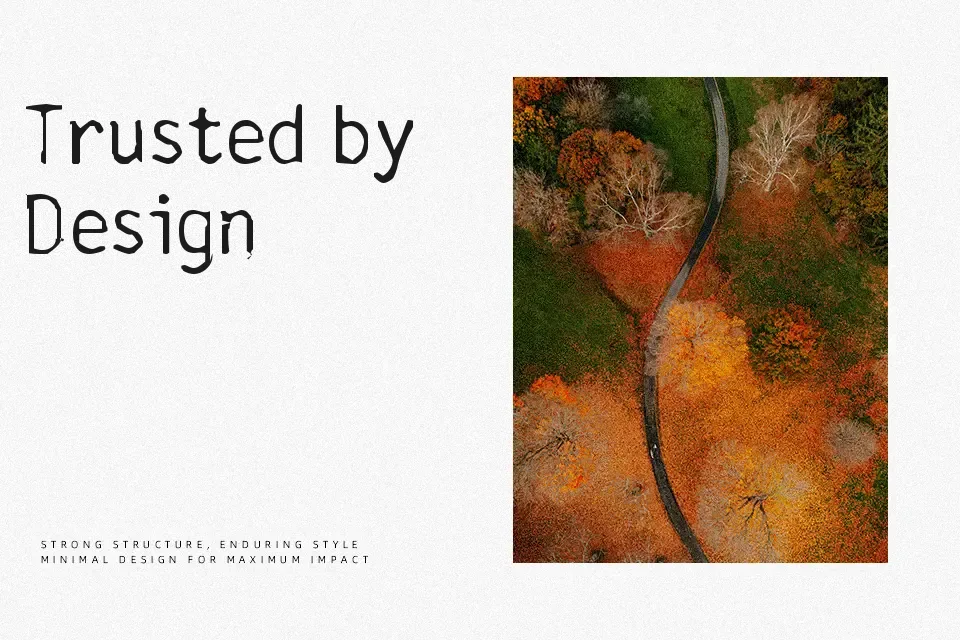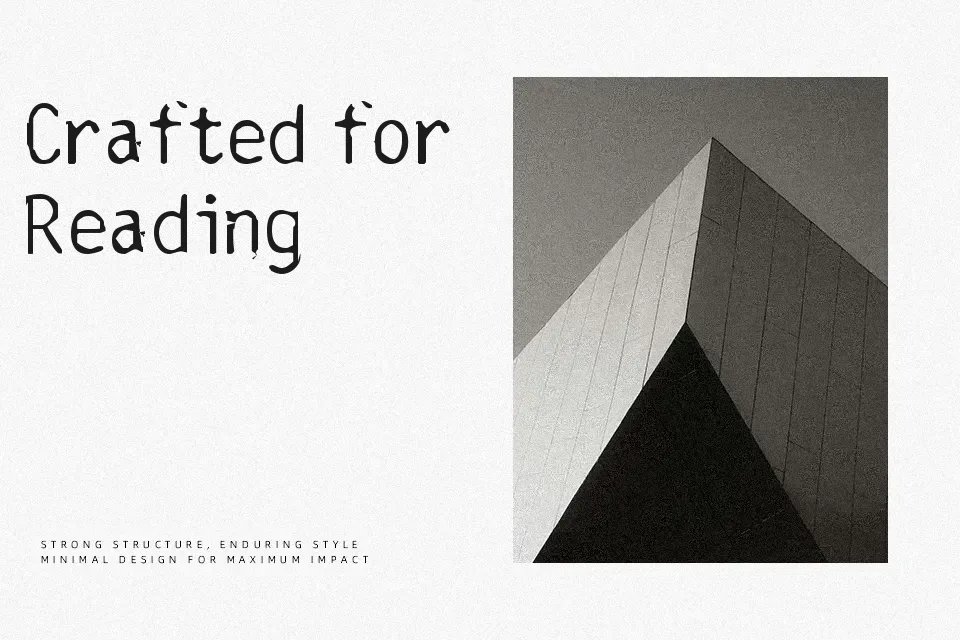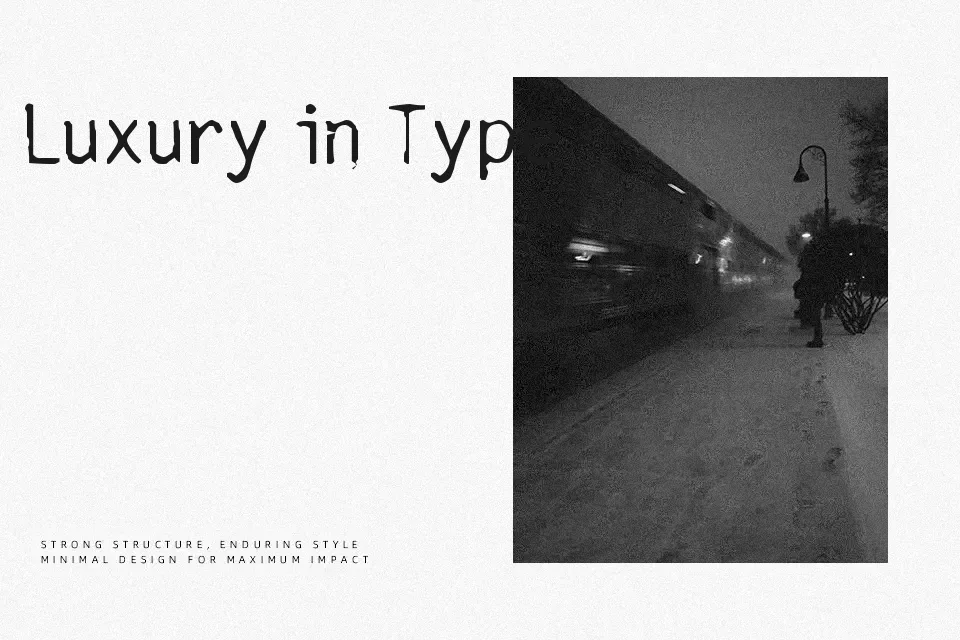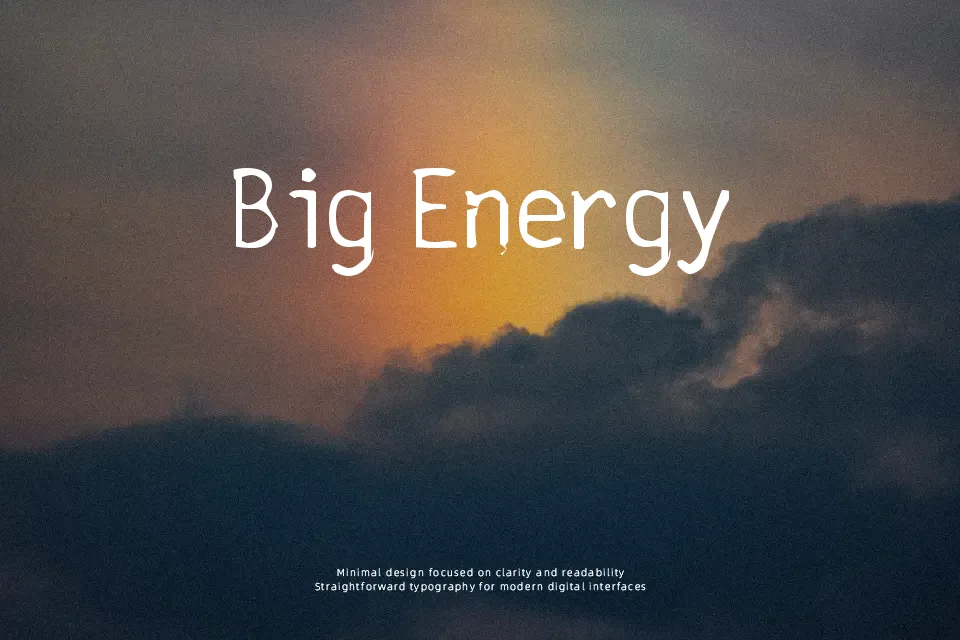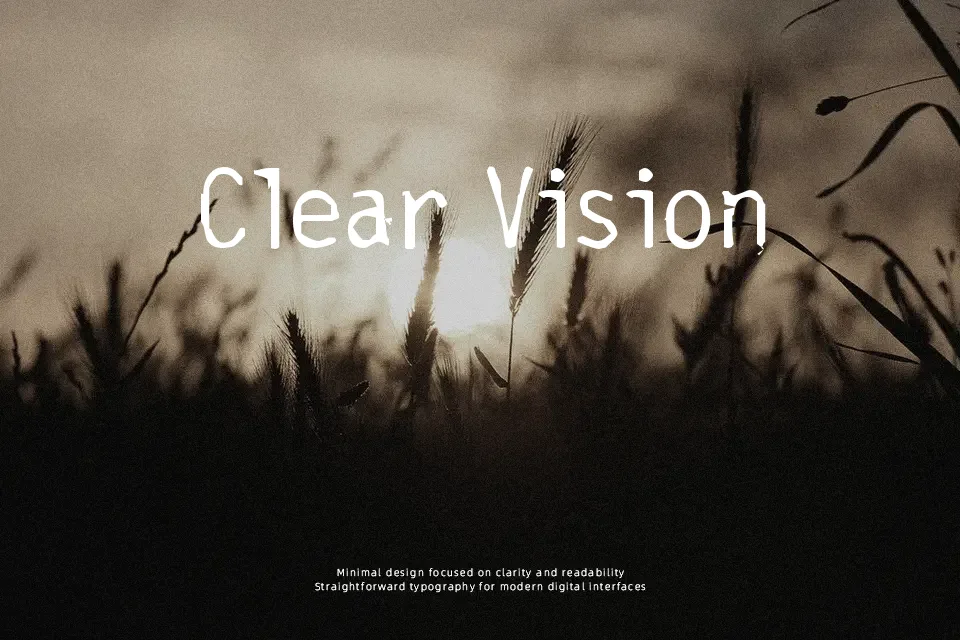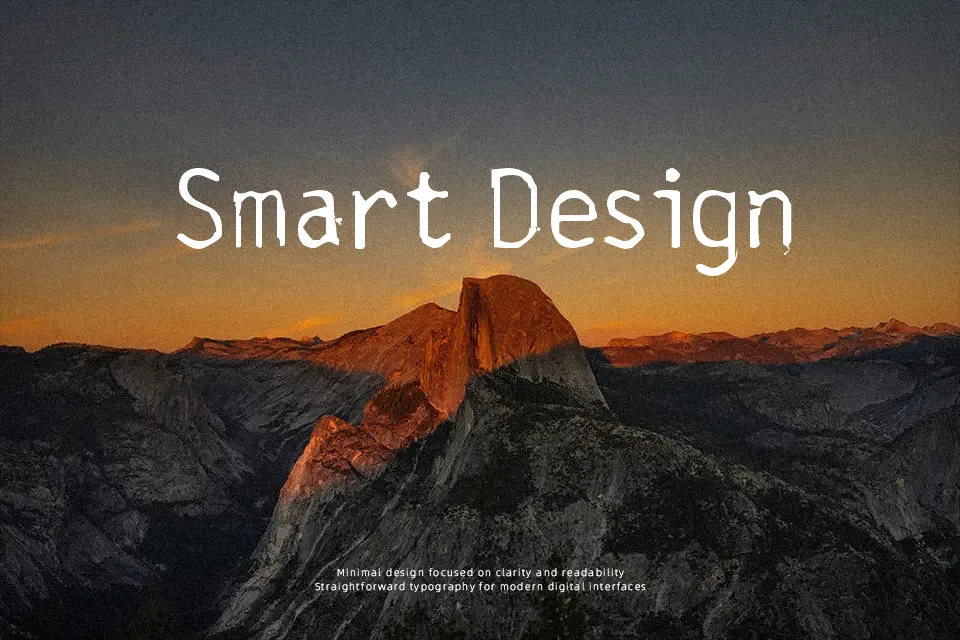
Burned Gothic Font
Designed by Paradox 2005
Burned Gothic is a weathered display font with irregular outlines, chipped terminals, and a rough, charred texture that makes each letter feel slightly unstable on the baseline. Strokes are moderately heavy, counters stay readable, and spacing is tight enough to feel compact without collapsing into noise. Visually it leans decorative and grunge rather than formal, so it works when you need a loud, damaged headline on horror movie artwork, heavy music covers, or Halloween promotion pieces. It struggles in long paragraphs, small captions, or clean corporate layouts, where the texture becomes tiring and unprofessional, so it is better kept for short, high-impact words.
Horror or thriller poster titles
Metal or hardcore album covers
Grunge gaming logos or stream overlays
Halloween event flyers and social posts
Body text or long paragraphs
Minimal, clean corporate branding
Formal editorial layouts or reports
Small-size UI elements or captions
Perfect for advertising, gaming, and headline, with a creative and decorative style.